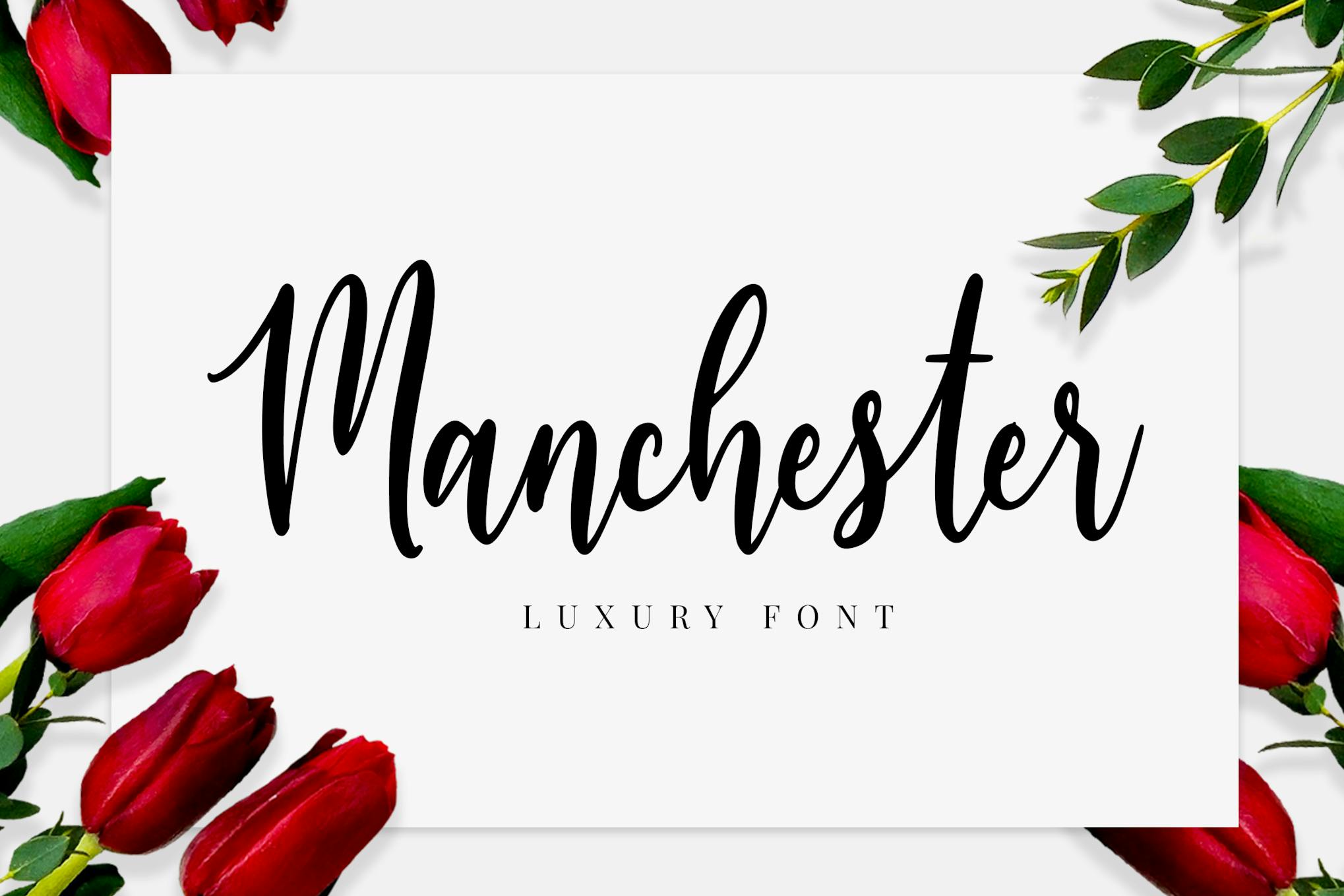
Manchester - Wedding Font
The Manchester - Wedding Font excels in distinguished design applications including prestigious wedding invitations, distinguished bridal branding, heritage ceremony logos, traditional product packaging, distinguished business cards, heritage portfolios, traditional greeting cards, distinguished social media graphics, heritage event signage, and traditional marketing materials. Its heritage script style makes it perfect for projects requiring traditional elegance that communicates heritage and establishes distinguished brand positioning with audiences seeking traditional wedding experiences and heritage sophistication.
What makes the Manchester - Wedding Font truly exciting is its exceptional ability to capture the distinguished heritage and traditional beauty of prestigious weddings through classically crafted letterforms. The font features flowing, heritage-inspired strokes with traditional flourishes and distinguished proportions that create a distinctly prestigious appearance. Each character displays remarkable attention to heritage detail with traditional curves, distinguished connections, and heritage spacing that give text a beautifully traditional, hand-lettered quality. The font's heritage character and distinguished rhythm create an atmosphere of traditional elegance while maintaining heritage sophistication and wedding authenticity.
The Manchester - Wedding Font family typically includes regular weight with extensive character coverage, featuring uppercase and lowercase letters, numerals, punctuation marks, and international characters. The typeface often incorporates stylistic alternates, contextual ligatures, and heritage swashes that enhance its signature tradition. These additional elements provide designers with creative flexibility to customize text appearance and achieve more natural-looking traditional handwriting that reflects the font's distinguished and heritage character.
This distinguished signature font captivates refined audiences through its remarkable balance of heritage charm and sophisticated elegance. Unlike modern or contemporary fonts that lack traditional appeal, Manchester - Wedding Font embraces the power of heritage design to create distinguished connections with traditional wedding audiences. The font's heritage character makes it essential for traditional wedding planners, distinguished brands, and heritage celebration businesses where creating traditional wedding experiences and distinguished memories is fundamental to success in heritage wedding markets.